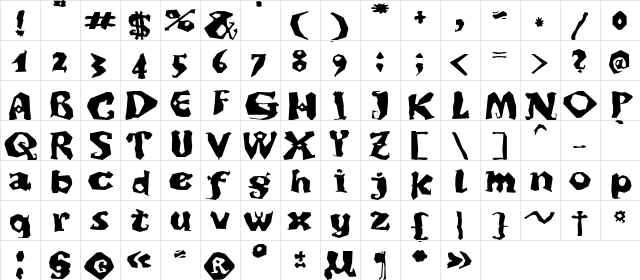
Dikovina Bold
Design Context for Dikovina Typeface
Dikovina is a composed and adaptable typeface that performs quietly and consistently across a wide range of design contexts. The heavy weight commands attention and anchors typographic hierarchies.